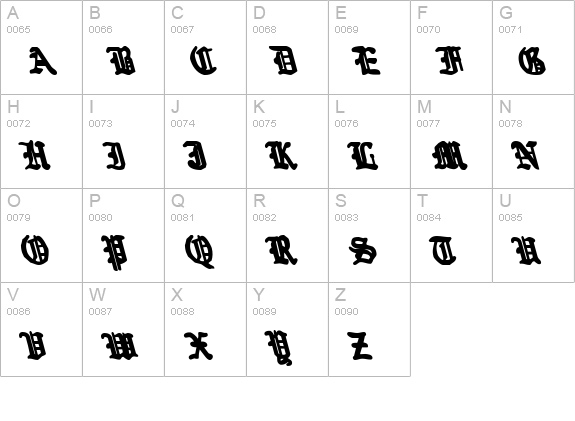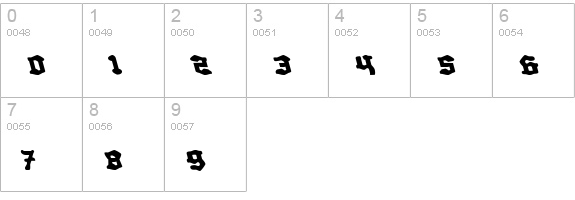
Quest Knight Leftalic is a stunning and elegant font that exudes a sense of adventure and mystery. Its bold, slanted design gives it a unique and eye-catching appeal, making it perfect for titles, headers, and other prominent text. The sharp, clean lines of this font convey a sense of strength and determination, making it an ideal choice for projects that require a bold and impactful statement. The best part? Quest Knight Leftalic is available for free download at FontsMarket.com, making it accessible to all who seek to add a touch of sophistication and intrigue to their designs. Whether you're working on a poster, logo, or branding project, this font is sure to elevate your work to the next level. Embrace the spirit of adventure with Quest Knight Leftalic and let your creativity soar.